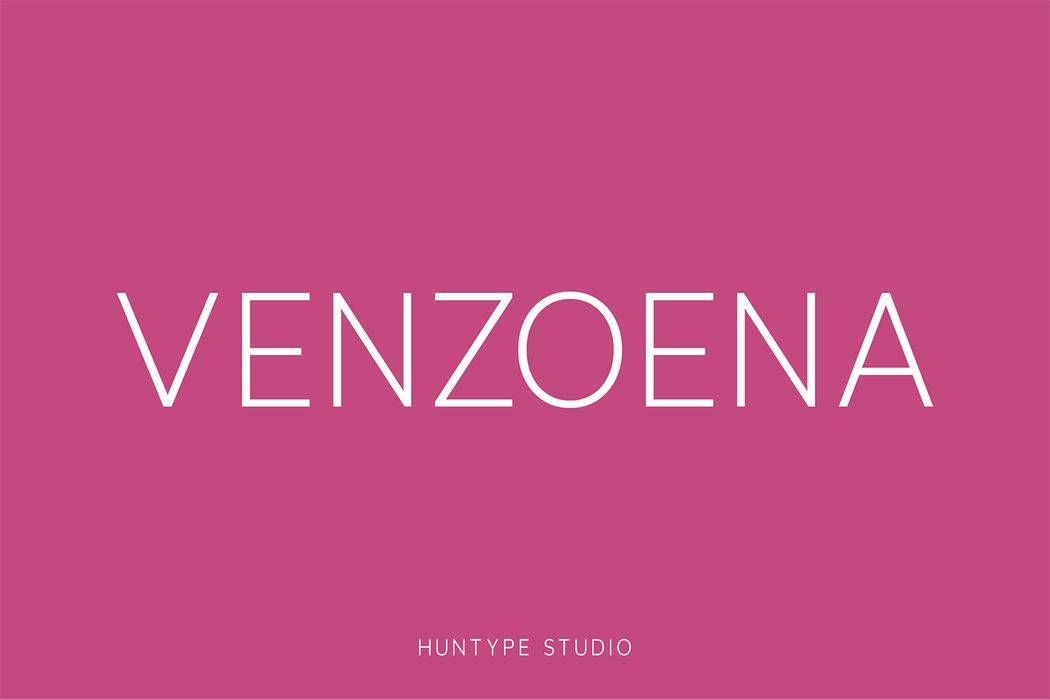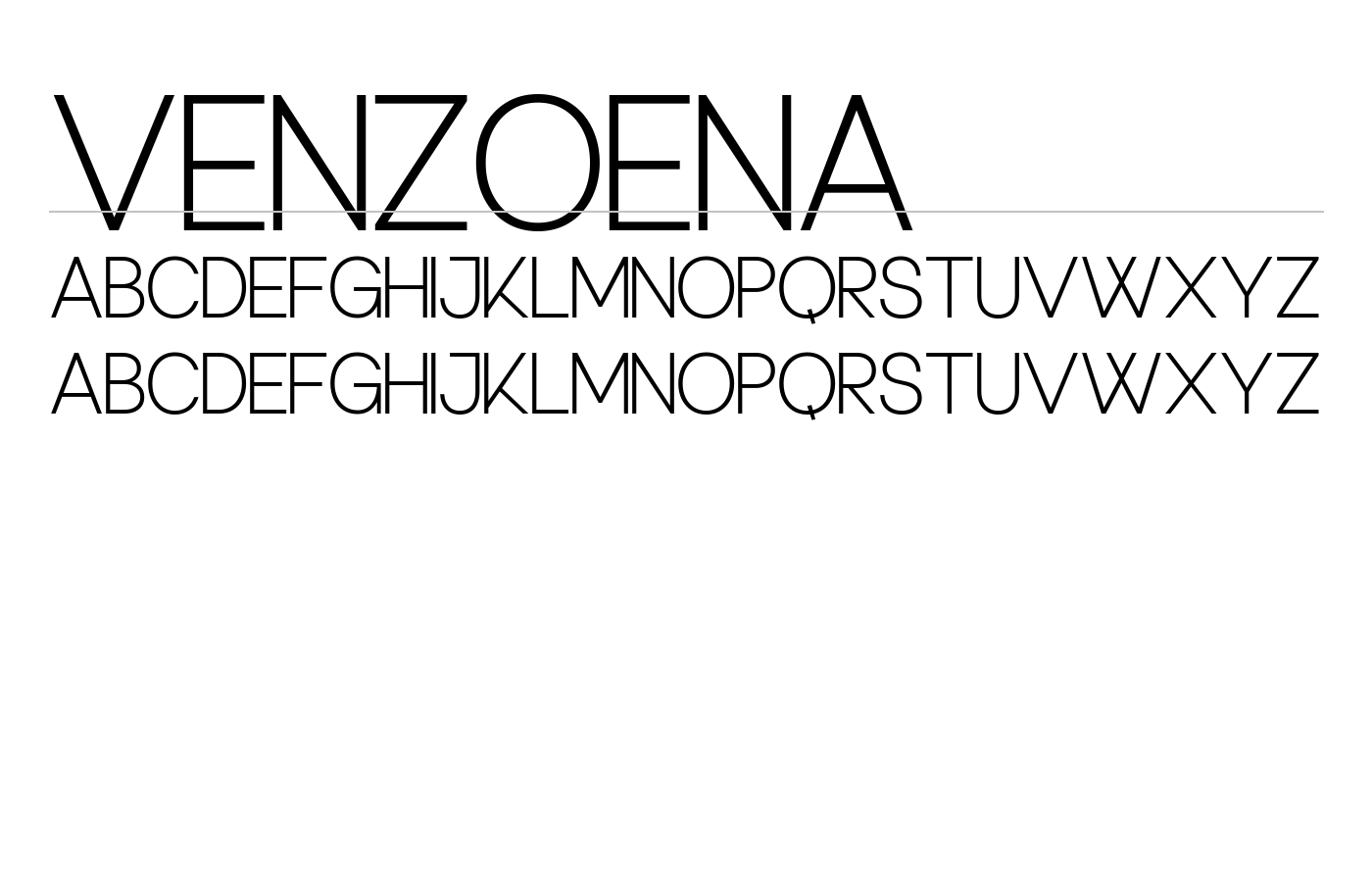
Venzoena is a sleek, modern sans serif font characterized by its ultra-thin, elegant lines and tall, narrow letterforms. Its refined geometric shapes and consistent stroke weight give it a minimalist and sophisticated feel, making it ideal for high-end branding, fashion, and editorial design where a clean, upscale look is desired. This font shines in large sizes for headlines and logos, conveying a contemporary and stylish personality.
Venzoena Font
About Venzoena Font